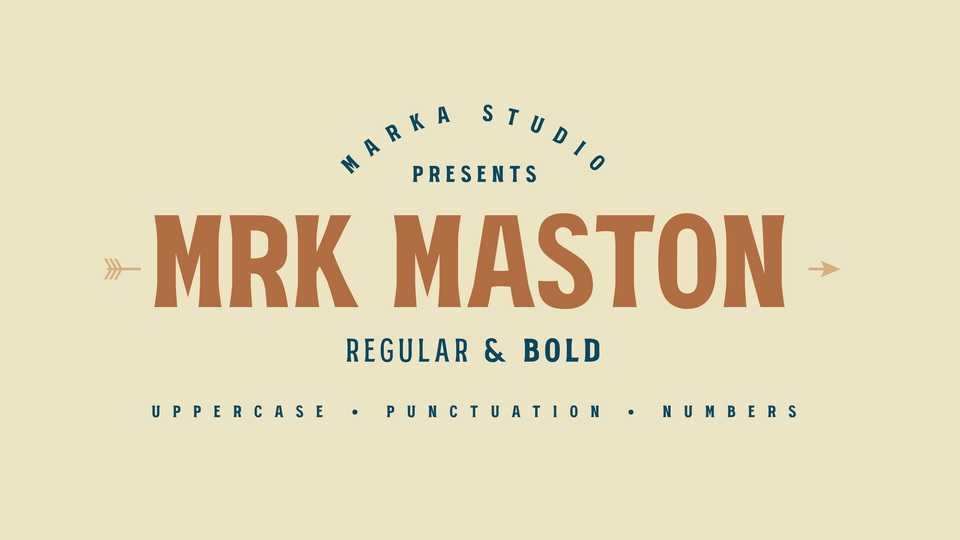
Download MRK Maston font, a case-sensitive display typeface with a vintage look. MRK Maston is perfect to use in logo, poster, social media, editorial, packaging, and UI design works.
Designer: Marka Design Studio